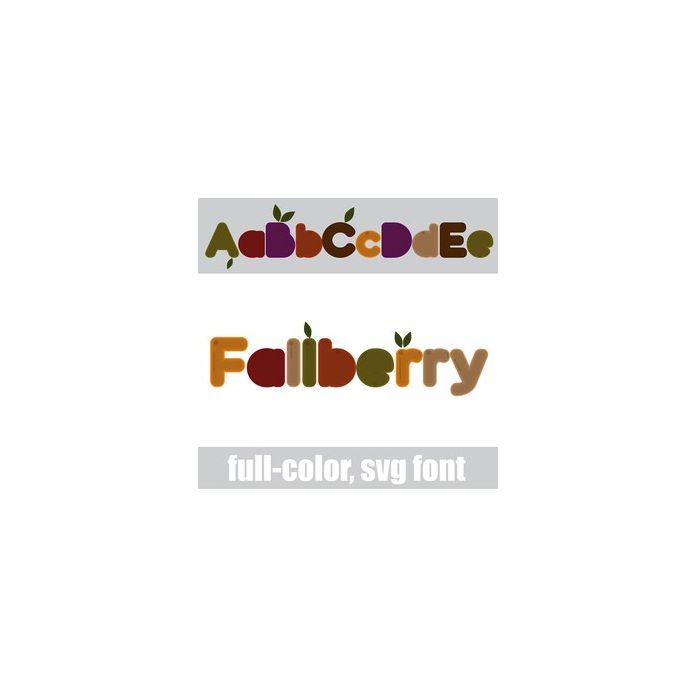
This full-color font features autumn berries and leaves. There is an alt case w/ additional colors you can access through your system or Silhouette's glyph map.